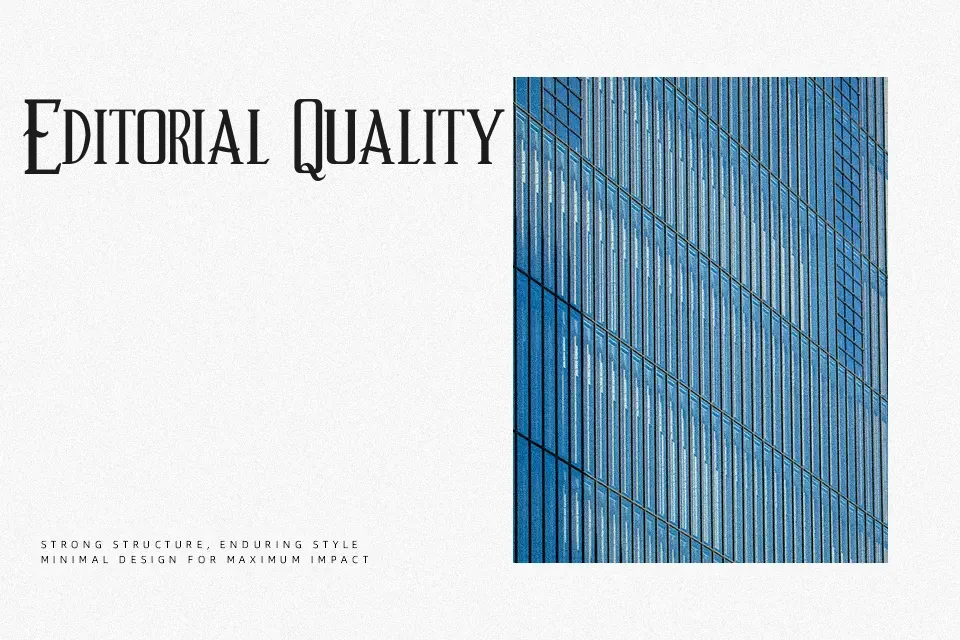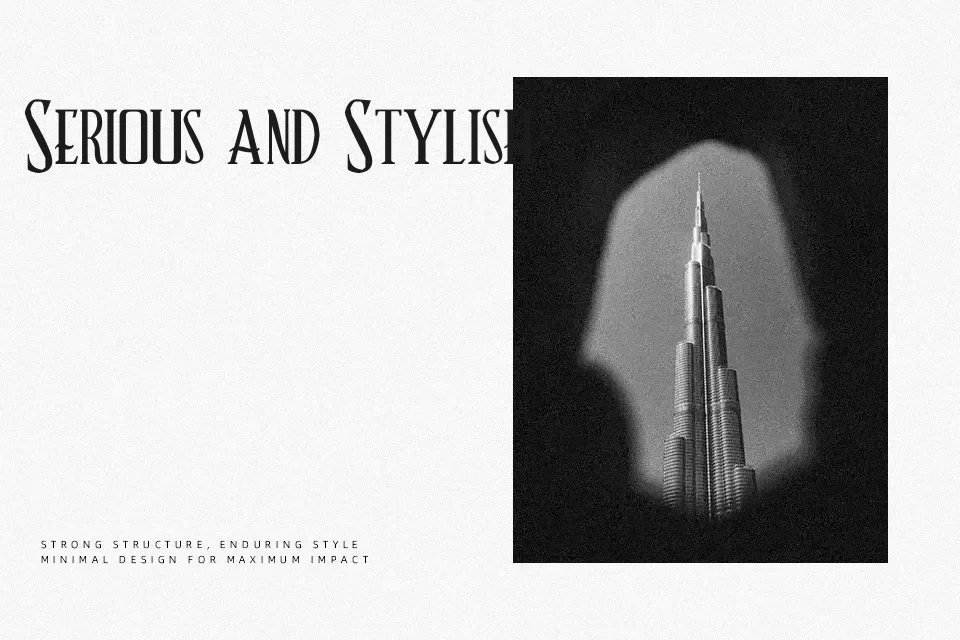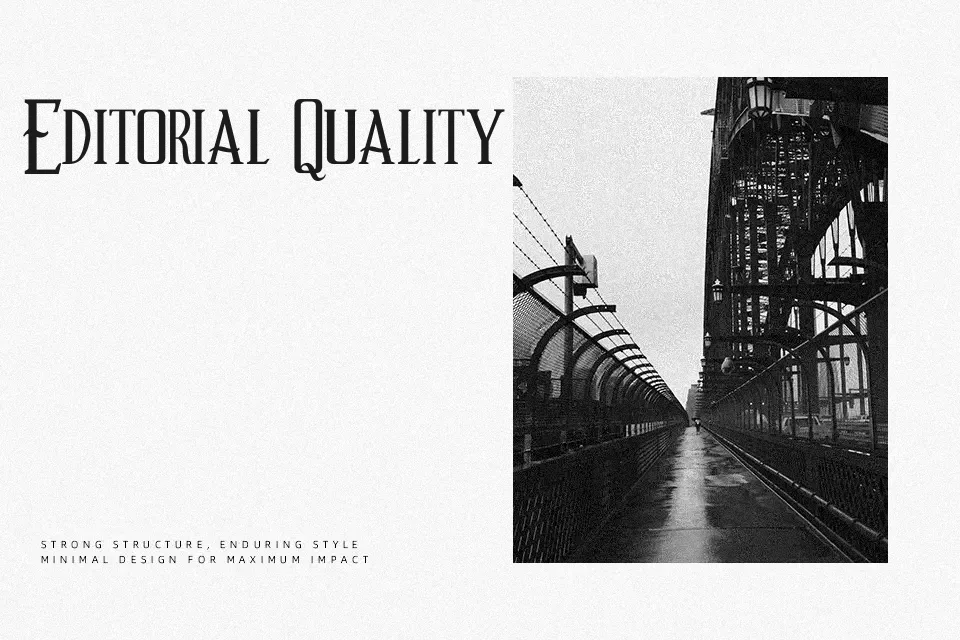
Schindler’s Font Font
Designed by Juan Casco
Schindler’s Font Font presents a refined display serif structure distinguished by slender vertical stems, modest horizontal crossbars, and sharp, sculpted serifs. Balanced character widths and controlled tracking establish an authoritative rhythm across headline compositions. The moderate stroke contrast maintains crisp definition when set at prominent scale, allowing the letterforms to project quiet elegance in documentary graphics, cinematic title sequences, and memorial publications. However, the delicate terminal cuts and compact internal counters diminish clarity when scaled down to small interface labels or continuous reading formats. The typeface performs best when granted ample negative space on spacious display layouts.
Best For: documentary film posters, cinematic title sequences, historical book covers, museum exhibition banners
Not Ideal For: body text in novels, mobile app user interfaces, dense spreadsheet data, small product ingredient labels
Perfect for advertising, editorial, and film, with a classic and condensed style.